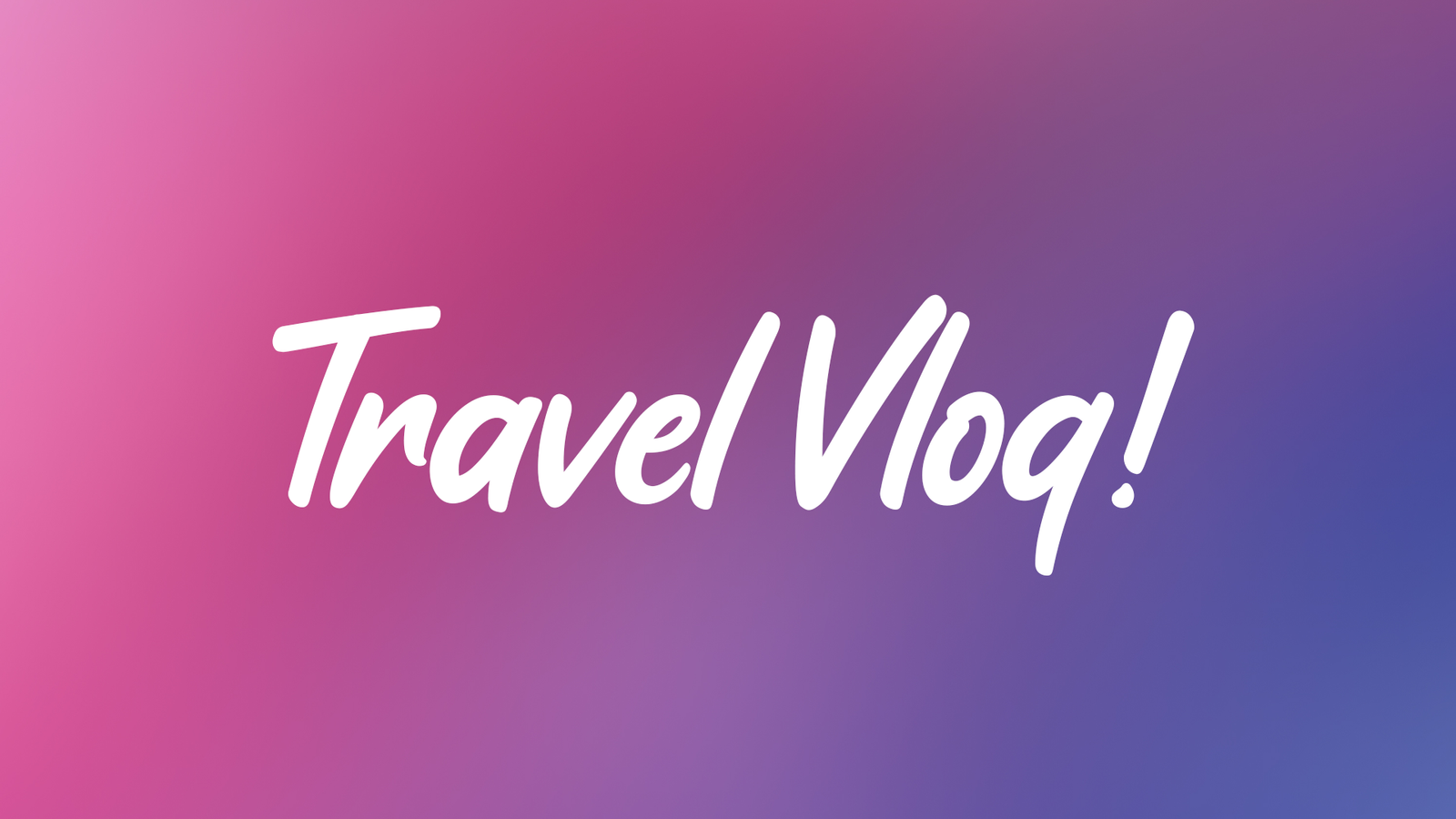
Modern fonts are the perfect choice for creating sleek, sophisticated, and contemporary designs. With clean lines, geometric shapes, and minimalistic aesthetics, these fonts enhance branding, websites, social media graphics, and editorial layouts. Whether you're looking for a bold sans-serif, a refined serif, or a futuristic typeface, modern fonts bring elegance and professionalism to any project. Their versatility makes them ideal for logos, presentations, packaging, and digital marketing materials. Our collection of free modern fonts ensures high-quality typography that stands out while maintaining readability and style. Available in TTF and OTF formats, these fonts are compatible with various design tools, making them easy to incorporate into your creative workflow. Whether you prefer a sleek, corporate look or a trendy, artistic vibe, our modern fonts help you achieve a polished, cutting-edge design. Download now and elevate your typography game!